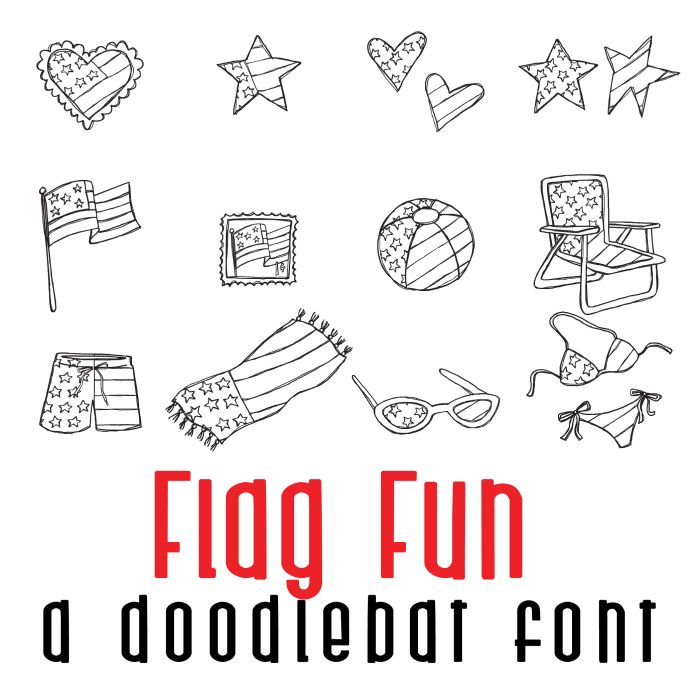
This fun doodlebat font features 26 different vacation and patriotic doodle style images, perfect for cards, crafts, gifts, decor, scrapbook pages, planner stickers, Independence Day and more!